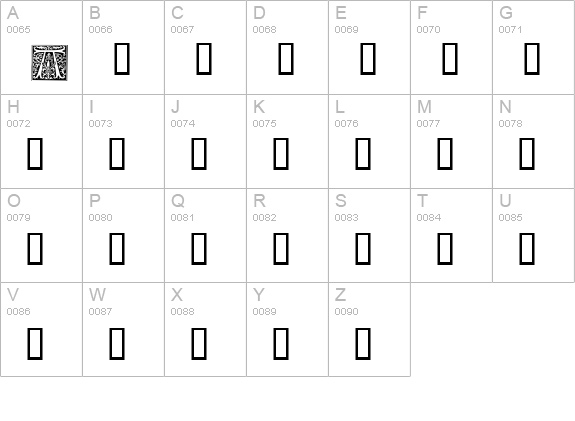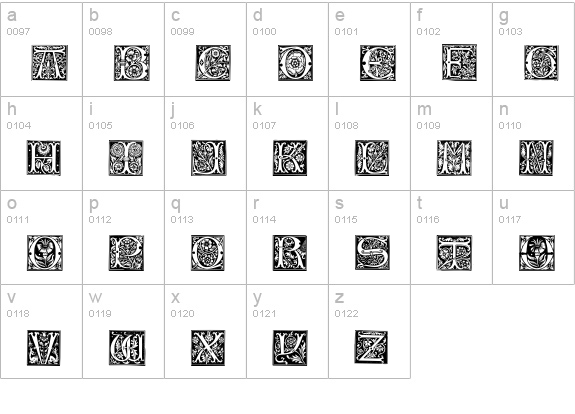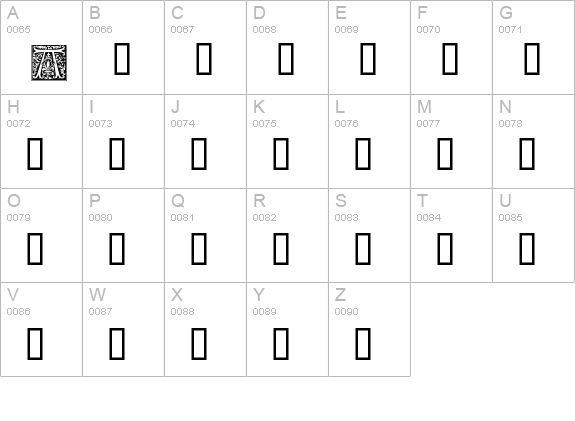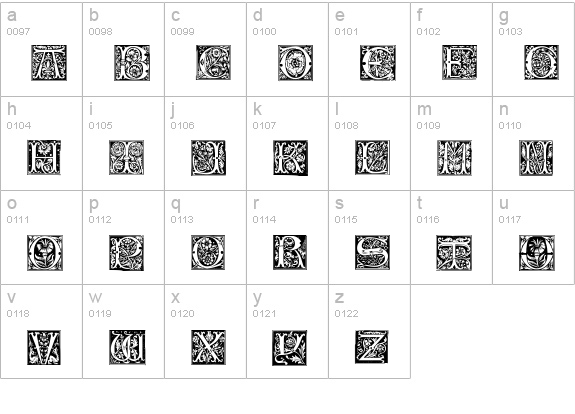
Vampyres Garden Font Details
Introducing Vampyres Garden font, an enchanting typeface that brings a touch of dark elegance to your designs. With its intricate and ornate letterforms, this font is perfect for capturing the mysterious allure of vampires and the enchanting beauty of their gardens. Vampyres Garden font is meticulously crafted to evoke a sense of Gothic romance and seductive charm. Its delicate curves and detailed embellishments create a captivating visual experience that will transport your audience to a world of mystical creatures and haunting landscapes. What makes Vampyres Garden font even more alluring is that it is completely free! Yes, that's right, this stunning typeface is freely available to download at FontsMarket.com. Whether you are a designer looking to add a touch of darkness to your projects or a writer seeking to bring your vampire tales to life, Vampyres Garden font is the perfect choice. With its versatile nature, this font can be used for a wide range of design projects. From book covers and posters to invitations and branding materials, Vampyres Garden font will infuse your creations with an air of enchantment and sophistication. So go ahead and dive into the captivating world of Vampyres Garden font. Let its intricate details and bewitching charm inspire your imagination and bring your designs to life. Download this exquisite typeface for free at FontsMarket.com and unlock a world of dark beauty and timeless elegance.